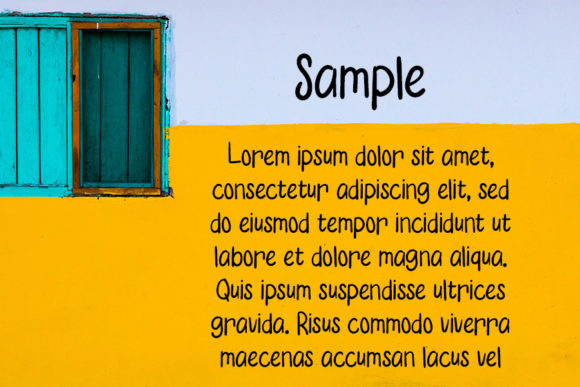
Introduction to Rabbit Rainly Font
Have you ever stared at a blank canvas, waiting for inspiration to strike? It’s a moment we’ve all experienced – a creative block that seems impossible to shake. But what if the right tool could unlock your imagination and set your design project in motion? Enter the Rabbit Rainly Font, a versatile and friendly display font that’s sure to breathe life into your next creative project.
As a valuable resource for designers, the Rabbit Rainly Font offers endless possibilities for artistic expression. Its simple yet elegant design makes it an ideal choice for a wide range of applications, from graphic design to digital art. Plus, with its transparent background, you can easily combine it with other design elements to create a unique visual identity. Whether you’re a seasoned pro or just starting out, the Rabbit Rainly Font is a must-have in your design arsenal.
Ready to explore the possibilities of the Rabbit Rainly Font? Stay tuned for our in-depth look at this high-quality design resource, available for free download and ready to elevate your next creative project to new heights.
Key Features of Rabbit Rainly Font
- Unique and creative design perfect for various projects, including illustrations, graphics, and digital art.
- High-quality font with transparent background, ideal for use on images, logos, and other design elements.
- Perfect design resource for creative projects, such as children’s books, educational materials, and advertising campaigns.
Honest Review: Rabbit Rainly Font
I recently had the chance to work with the Rabbit Rainly Font, and I must say it’s a great addition to any designer’s toolkit. One of the things that stood out to me was the high quality of the font itself. The clear, crisp lines and delicate details make it perfect for any creative project that requires a touch of whimsy.
One of the best things about this font is its versatility. It can be used for a wide range of design projects, from children’s books to wedding invitations. The transparent background also makes it easy to combine with other design elements and create a cohesive look.
- Transparent background for easy integration with other design elements
- May not be suitable for large-scale commercial projects due to its delicate nature
- Not as customizable as some other fonts on the market
Overall, I’m impressed with the Rabbit Rainly Font and would definitely recommend it to other designers looking for a unique and high-quality design resource. It’s a great addition to any creative project, and the free download makes it accessible to designers of all levels.
The Rabbit Rainly Font is a versatile design resource that can be used in a wide range of creative projects, including logos, business cards, and social media graphics. Its high-quality design and transparent background make it perfect for layering and blending with other design elements.